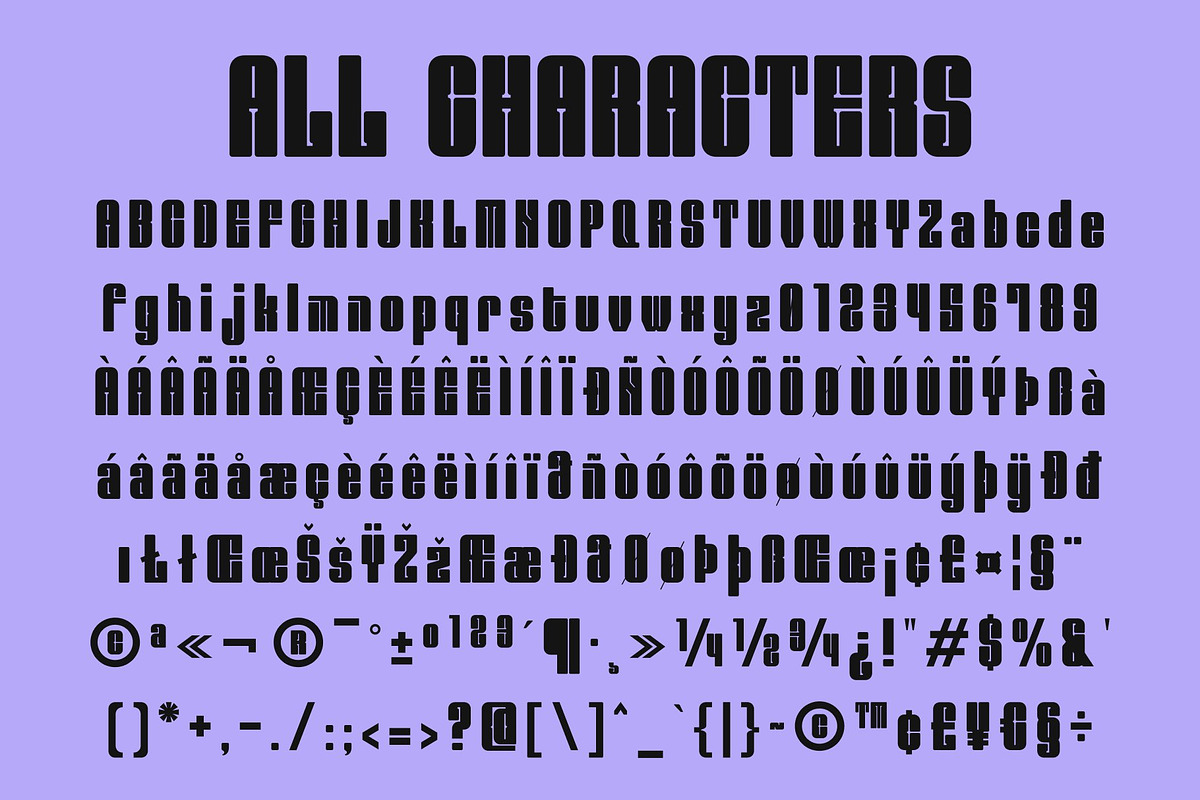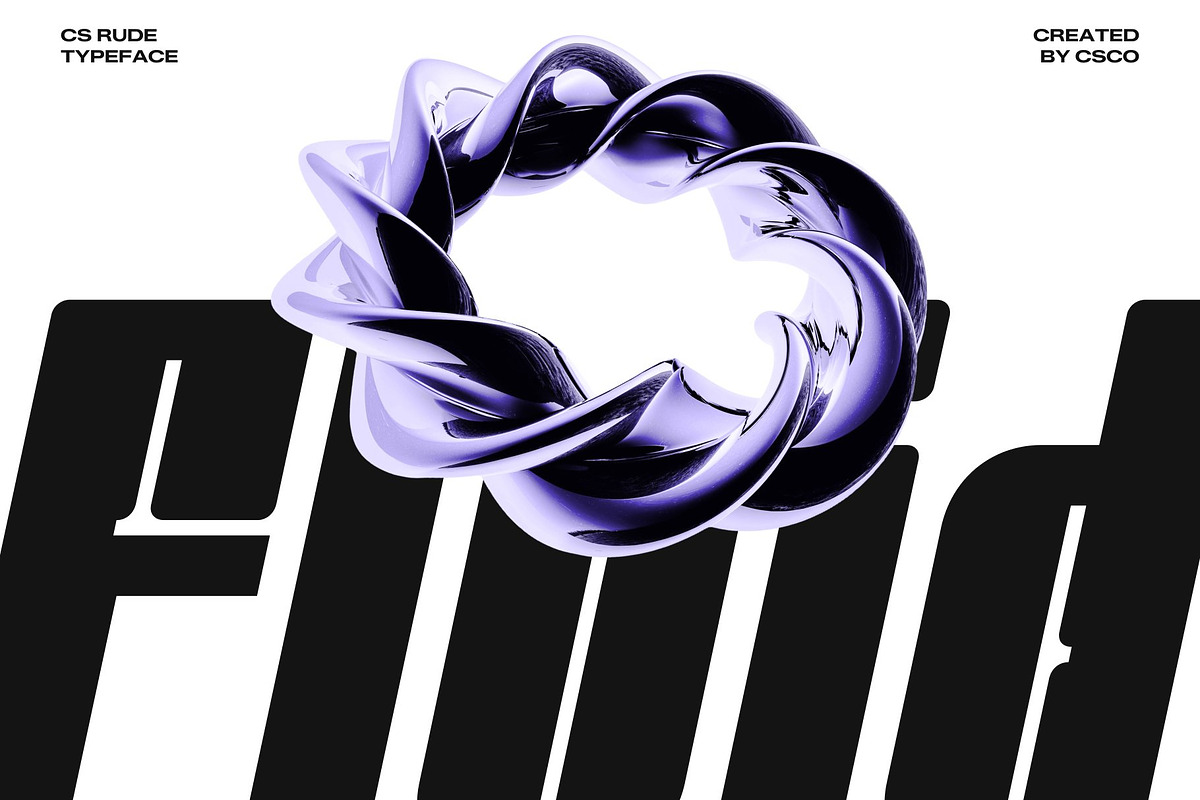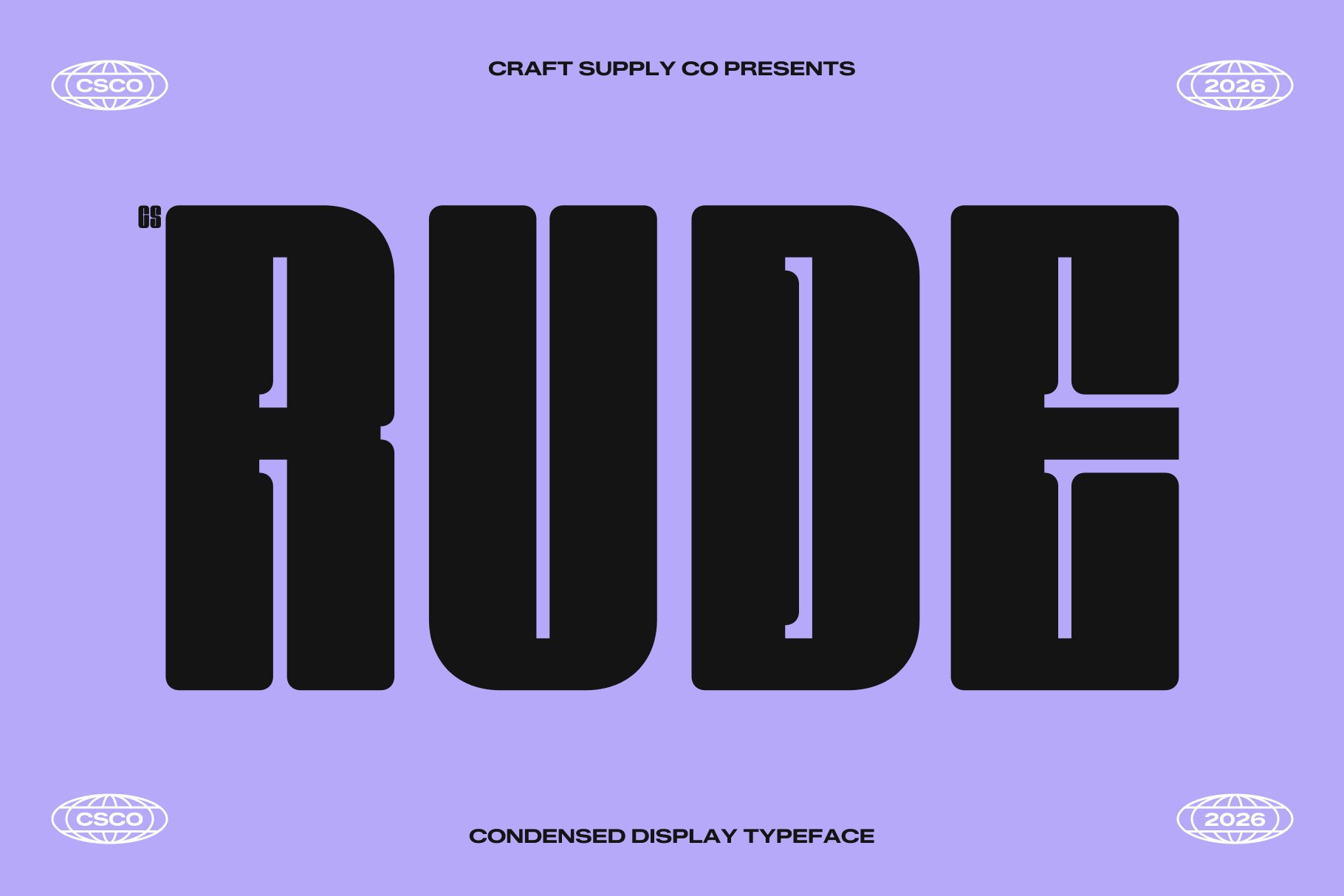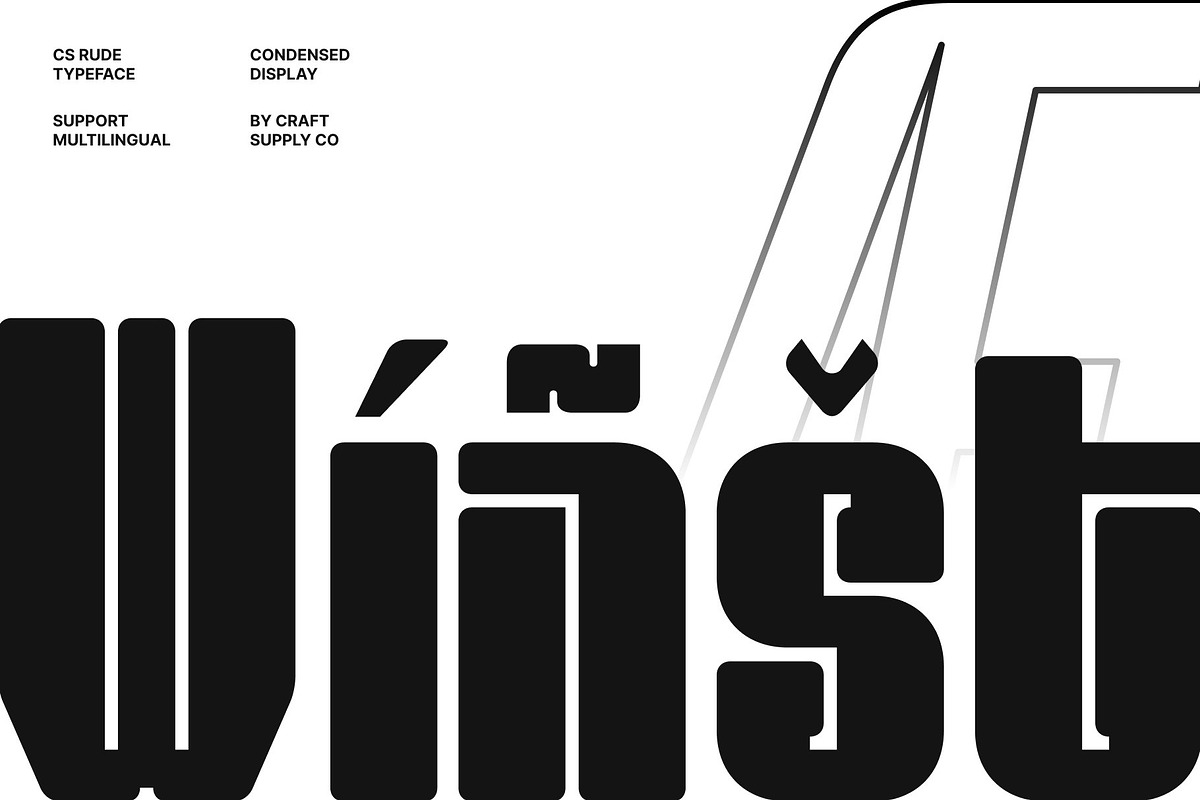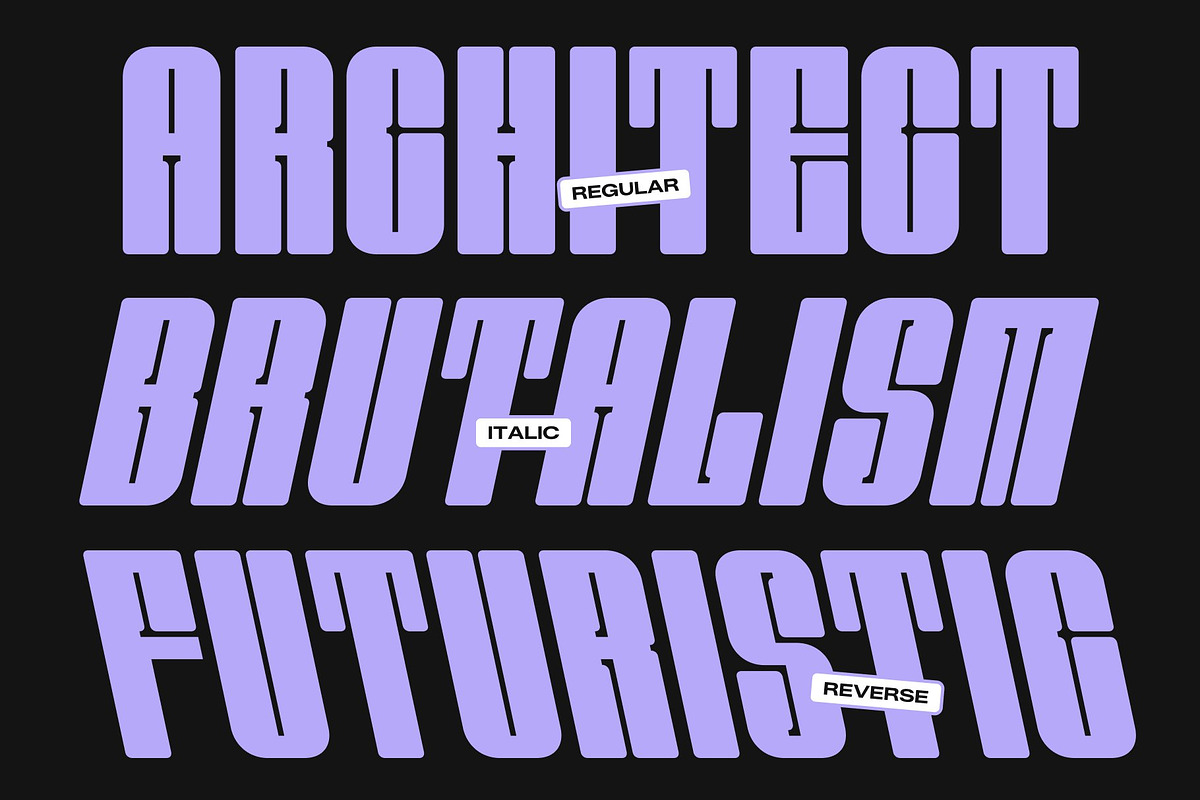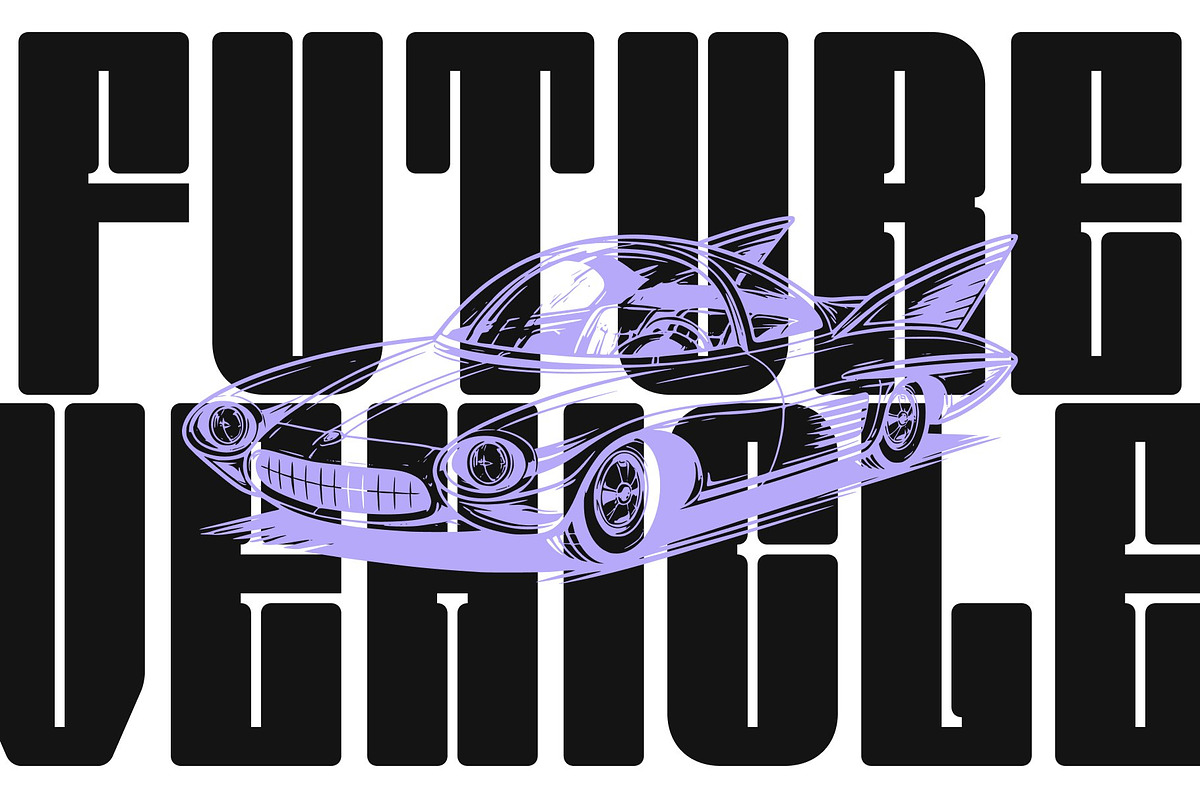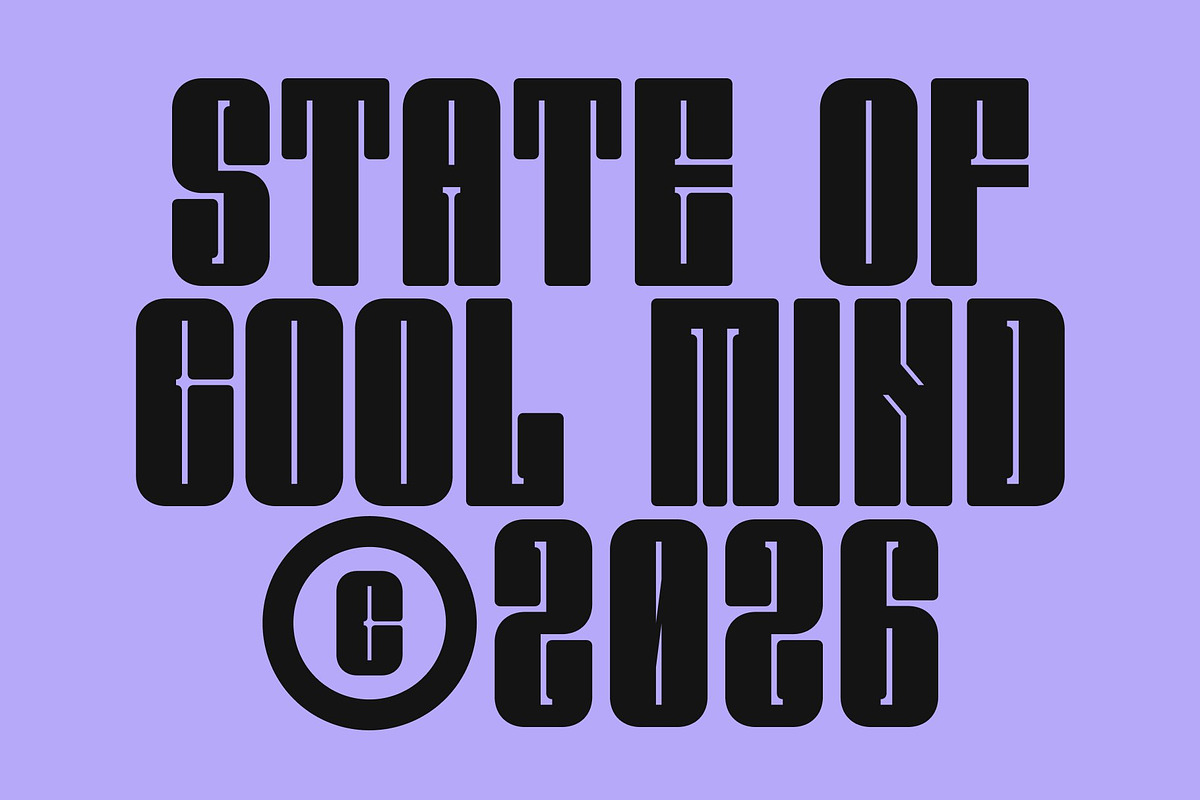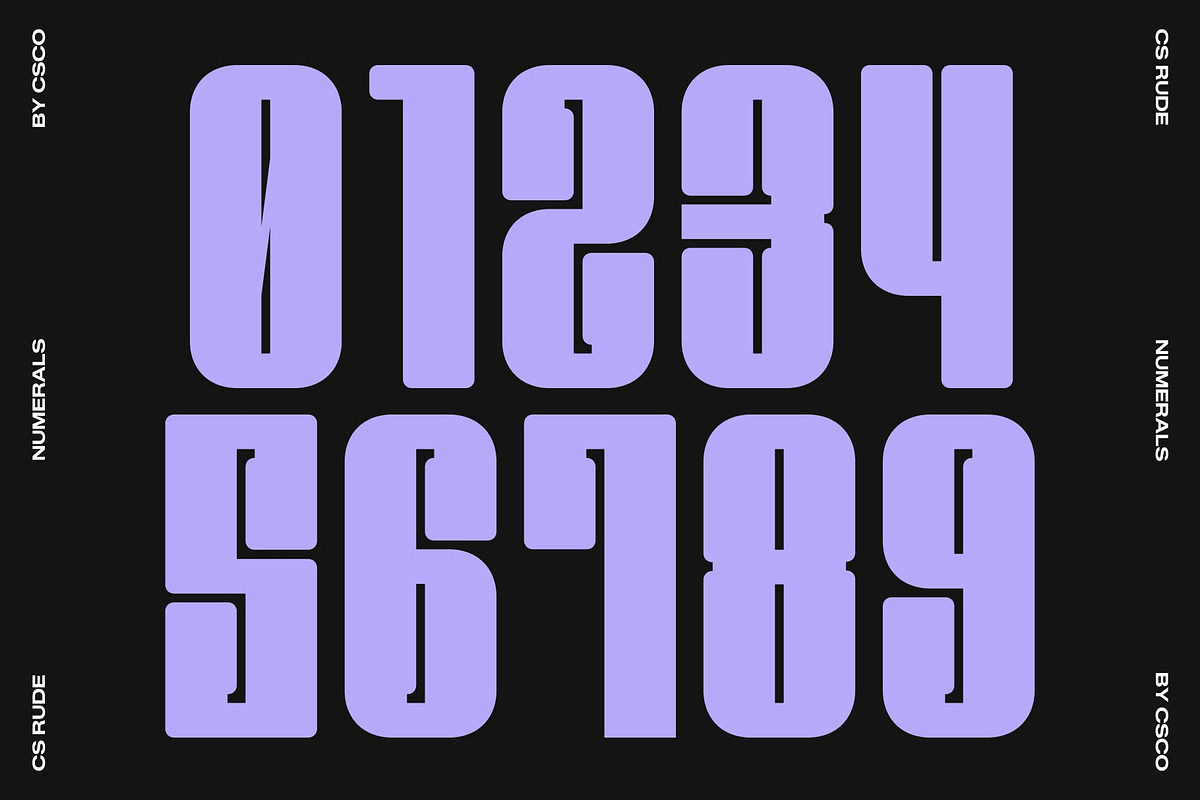
Rude – Condensed Font
CS Rude – Condensed Industrial Sans Serif with Bold Authority
Condensed Sans Serif with Industrial Edge This is a compact and modern condensed sans serif font designed to deliver a bold industrial presence. Built for strength and efficiency, this typeface combines sharp structure with contemporary energy, creating a confident voice that commands attention. Its strong personality makes it perfect for designs that need to feel powerful and modern.
Designed for Maximum Impact in Tight Spaces With its condensed proportions, this font allows designers to fit more content into limited layouts without sacrificing clarity. The tall, narrow letterforms create a striking vertical rhythm that feels assertive and space-efficient. This makes it ideal for headlines, posters, and branding where space is limited but visual impact is essential.
Bold Character with Strong Readability Despite its compact form, this font maintains excellent readability across various sizes. The clean strokes and balanced spacing ensure text remains clear and legible, while the industrial aesthetic adds depth and personality. This balance between boldness and clarity makes it a dependable choice for impactful typography.
Versatile for Branding and Creative Projects This font shines in branding, advertising, posters, and digital design that demand a strong visual identity. Its modern industrial style gives projects a confident and energetic tone, helping your typography stand out while maintaining a professional and contemporary look.
CS Rude Regular
CS Rude Italic
CS Rude Reverse Italic